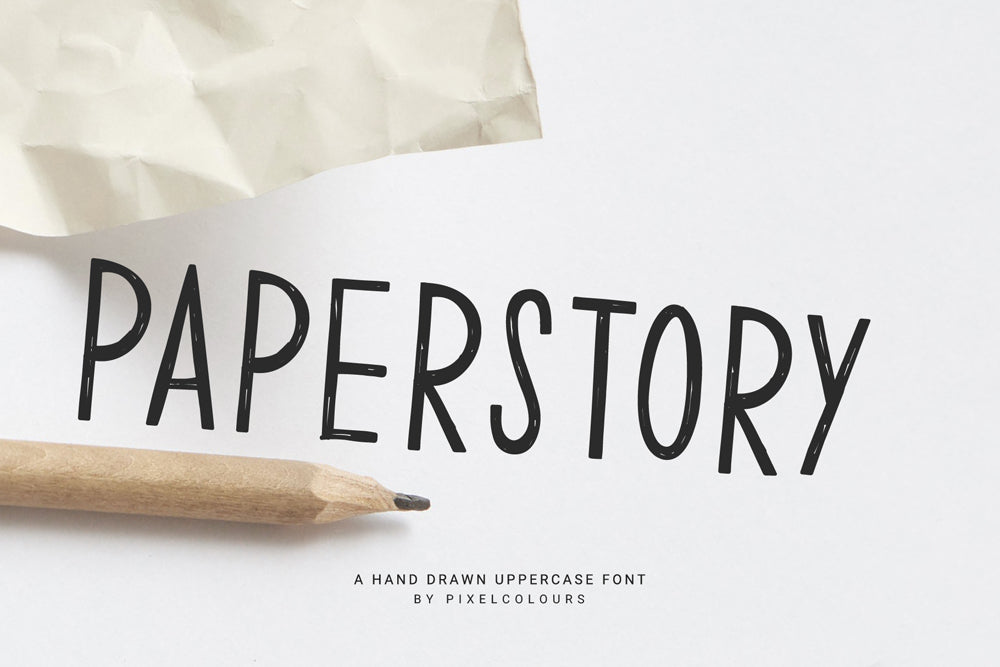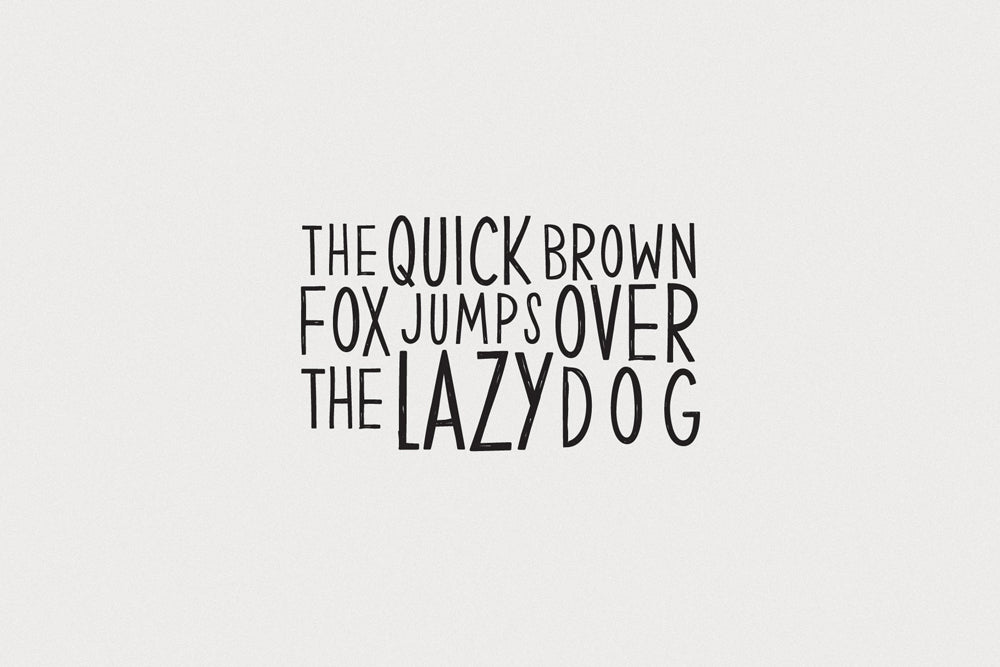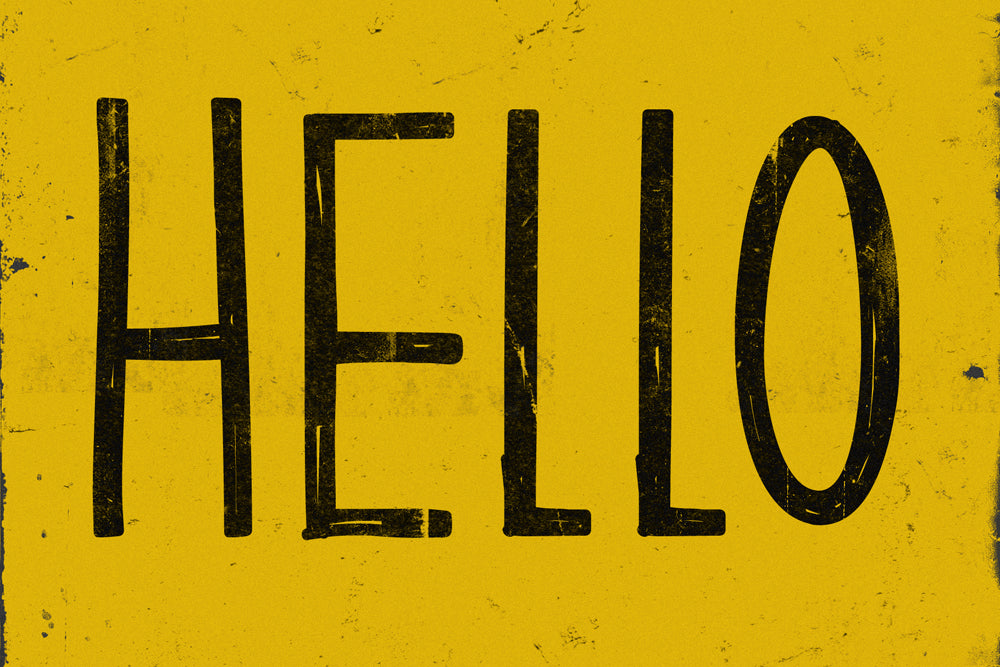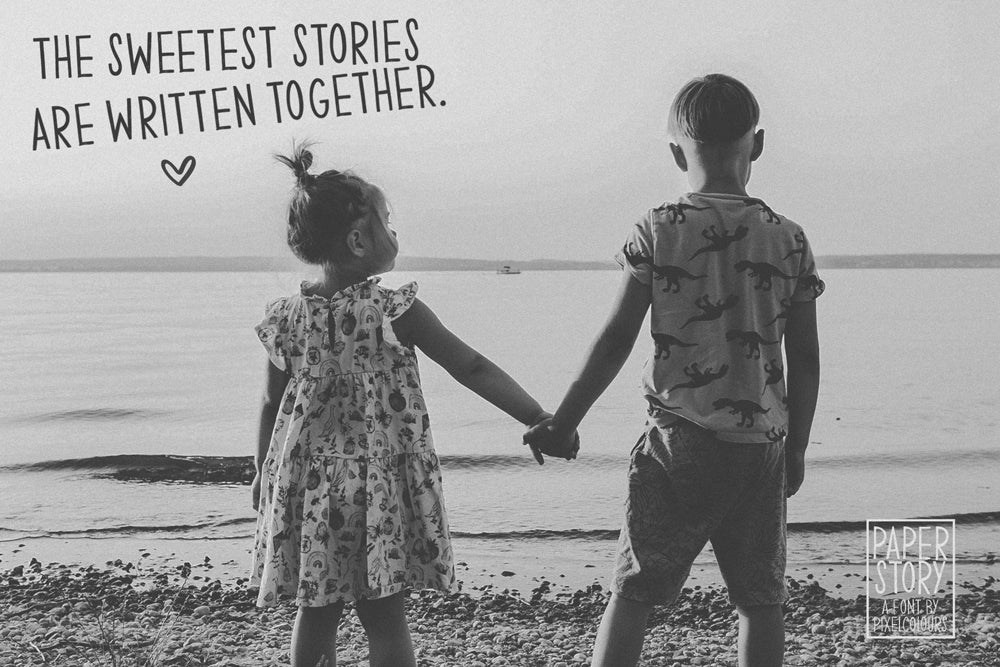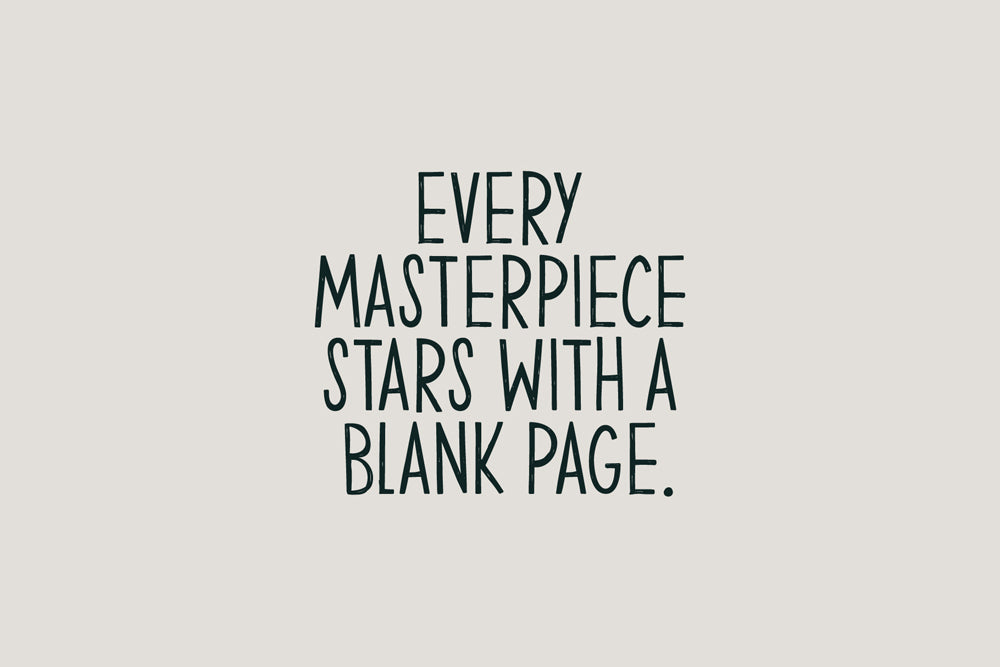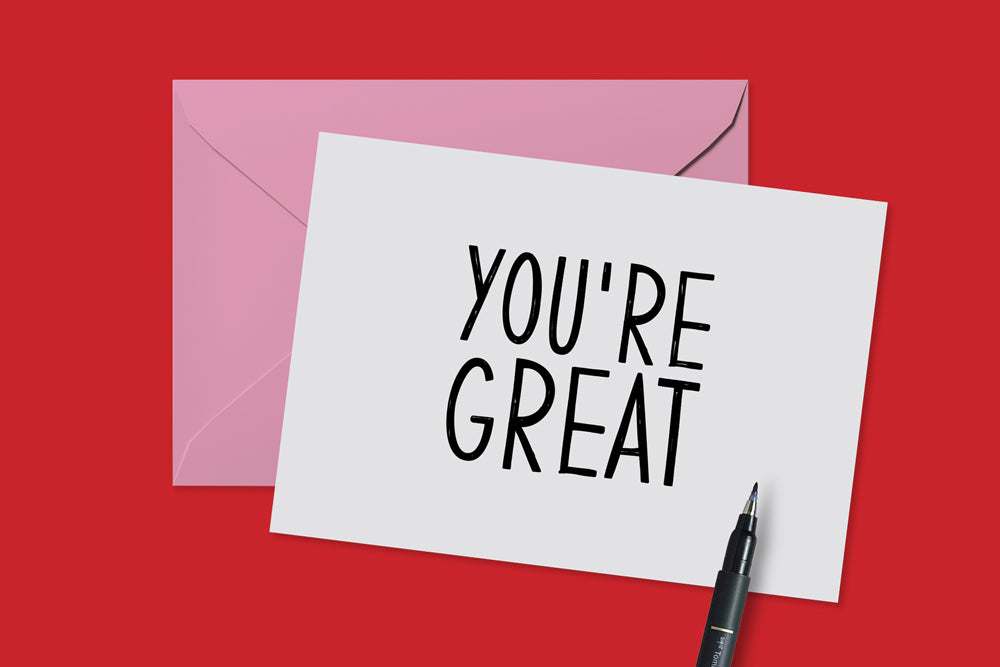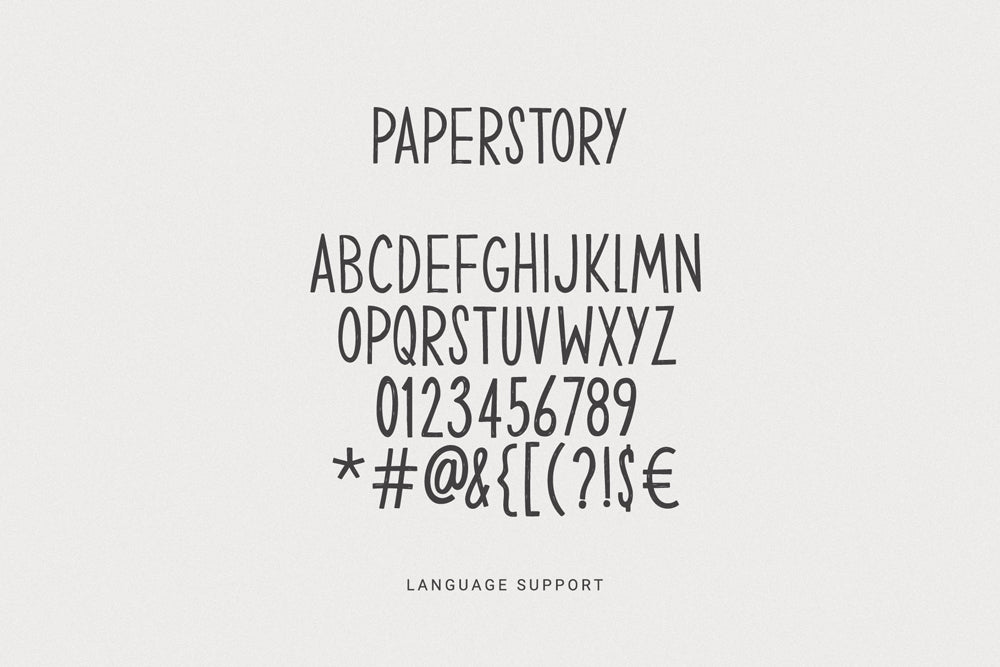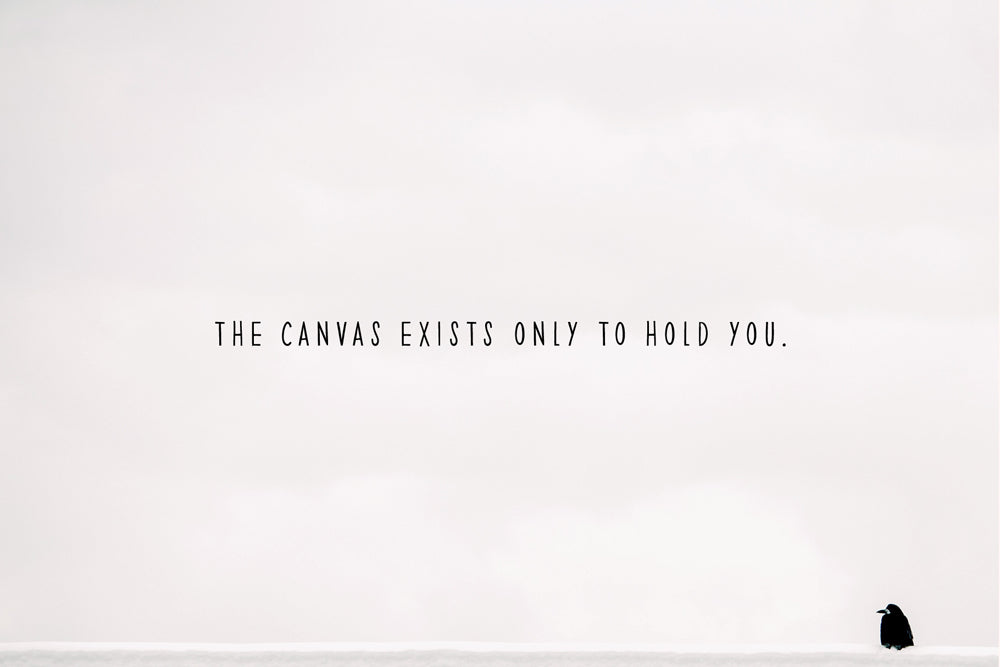
Paperstory Hand-Drawn Font
Paperstory is a modern hand-drawn uppercase font with a texture of pen-drawn lettering. Featuring thin, expressive strokes and subtle imperfections, it captures the authenticity of sketches on paper while remaining clean, legible, and versatile.
Inspired by handwritten notes and pen illustrations, Paperstory combines a delicate appearance with a confident presence. Its organic strokes adds warmth, personality, and character to every composition, making it ideal for modern branding, minimalist designs, and creative typography that feels genuine and effortlessly handmade.